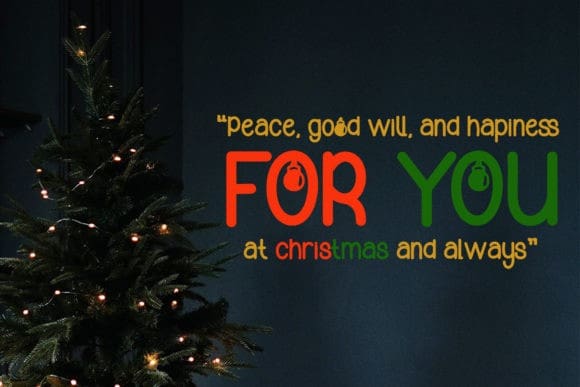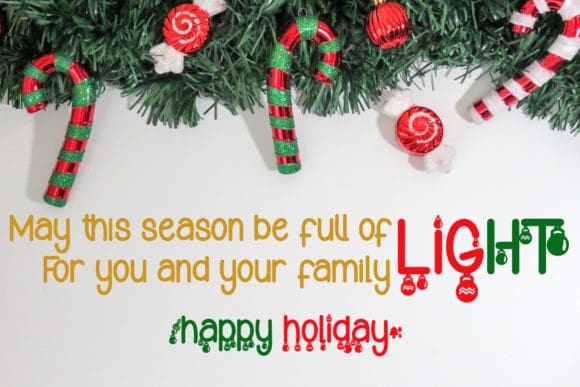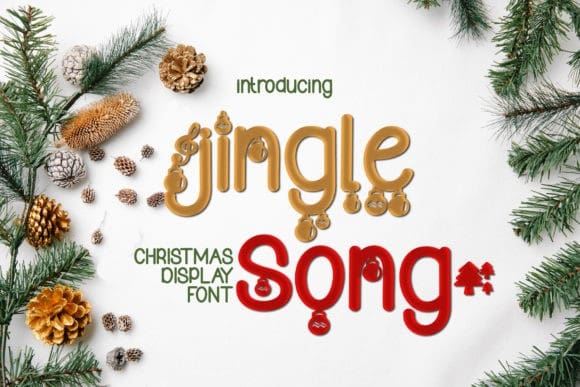
Jingle Song Font
Jingle Song Font is a cute and festive display font. It is PUA encoded which means you can access all of the glyphs and swashes with ease!